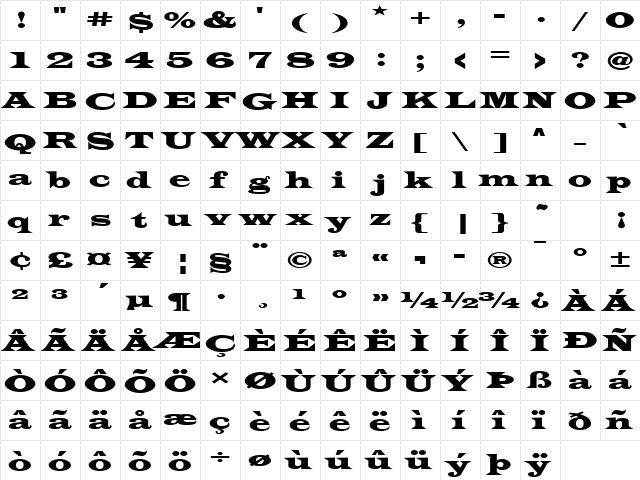
LatinWidD Regular Font Preview
LatinWidD Regular
Design Context for LatinWidD Typeface
LatinWidD offers clean, dependable letterforms without strong stylistic allegiance, making it a practical choice for designers who need flexibility.
Pro Tip: Pair LatinWidD with a font of contrasting weight or personality to build a more expressive typographic hierarchy.